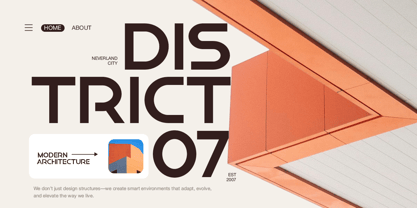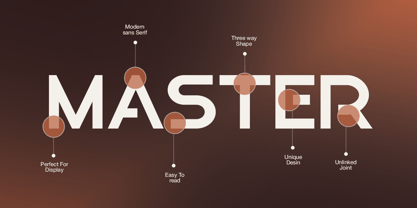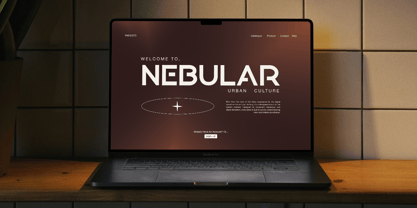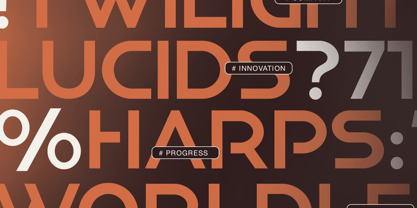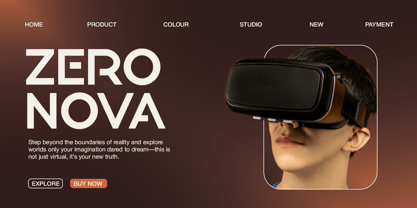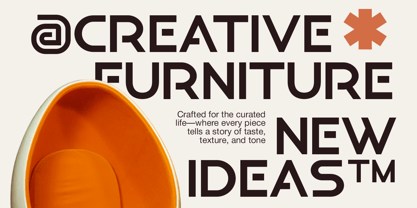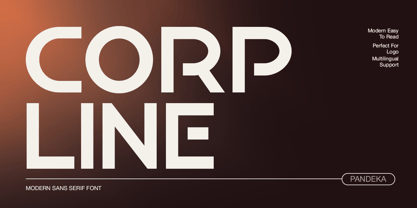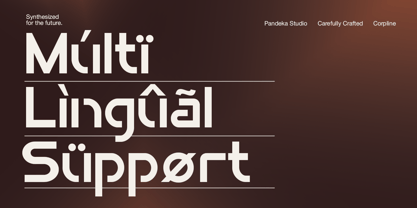
Corpline
by Pandeka Studio
The Corpline Font Family was designed by Sagara Nararya and published by Pandeka Studio. Corpline contains 1 styles. More about this family
Corpline is a sleek, modern sans-serif typeface designed to embody the future of digital and corporate branding. Its geometric construction and wide letter spacing evoke a sense of innovation, clarity, and bold functionality — making it perfect for tech startups, architecture studios, VR/AR applications, and modern UI/UX projects.
With a single powerful Regular style, Corpline keeps things clean and confident. The font includes uppercase and lowercase characters, numbers, punctuation, and extended multilingual support. Unique letterforms like the stylized R, modular A, and pointed diagonals add a high-tech feel while maintaining legibility.
Ideal for titles, logos, website headers, packaging, and branding materials that need a modern edge, Corpline is a one-weight wonder that makes a bold impression without overcomplication.